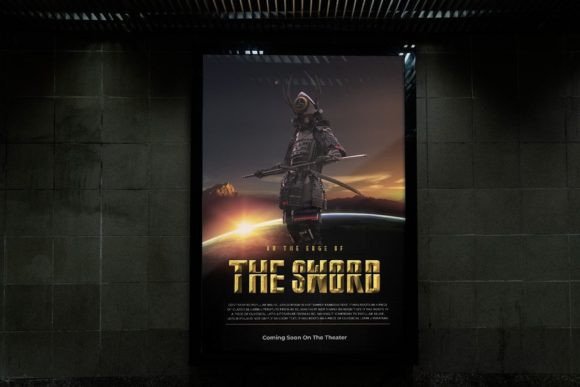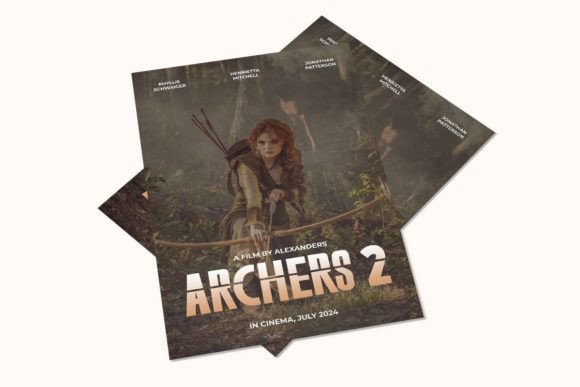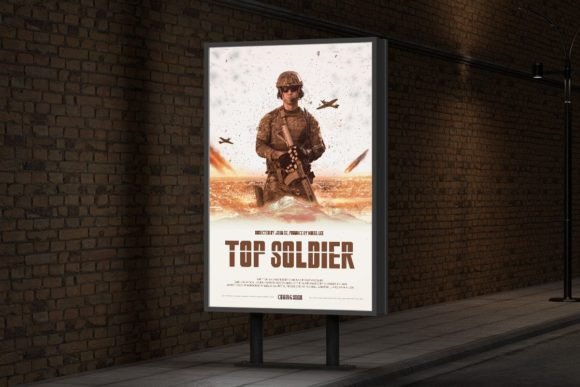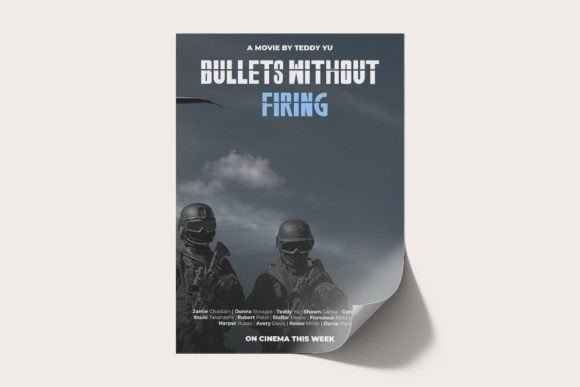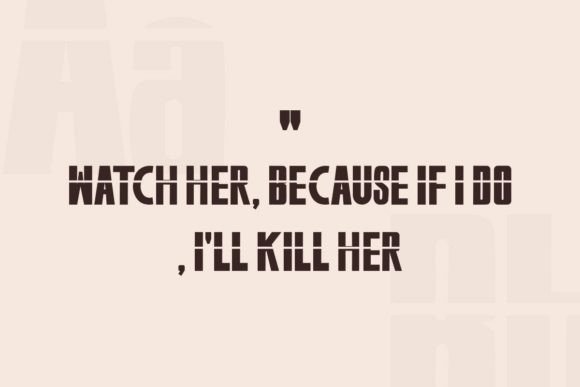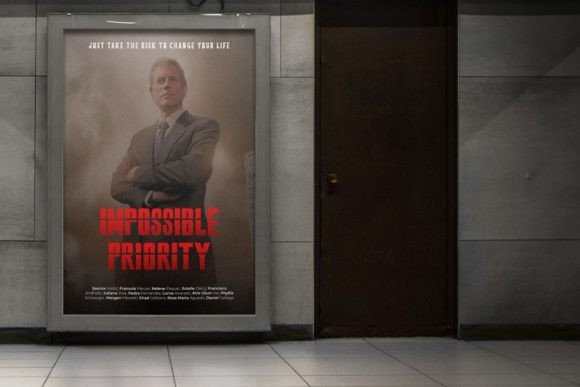
The Birth of a Bold Statement: Impossible Font
Remember that moment when you stumbled upon the perfect font for your design project, and everything just clicked? It’s like the universe aligned the pixels in your favor. For designers, finding the right typeface can be a game-changer. And that’s exactly what Impossible Font does – it makes a bold statement, turning your ordinary designs into extraordinary ones.
Impossible Font is a decorative sans serif typeface designed to make a lasting impression. Whether you’re creating movie titles, logos, or headlines, this flexible and friendly font is sure to turn heads. With its PUA encoding, you can easily access all the amazing glyphs and ligatures, giving you endless possibilities to experiment and create.
Key Features of “Impossible Font”
- Unique Character Set: The “Impossible Font” features a custom-designed set of characters, including letters, numbers, and symbols, that are optimized for readability and aesthetic appeal.
- High Resolution: The font is designed at a high resolution of 300 DPI, ensuring crisp and clear text display, even at large sizes.
- Font Size and Weight: The font is available in multiple sizes, ranging from 12 to 72 points, and various weights, including Light, Regular, Medium, Bold, and Black, allowing for flexibility in design and layout.
- Customizable: The font is designed to be highly customizable, with features such as ligatures, swashes, and alternate characters, allowing designers to create unique and creative typography.
- Legibility and Readability: The font is optimized for legibility and readability, with features such as clear letterforms, adequate x-height, and sufficient contrast between light and dark areas, making it suitable for body text and large blocks of text.
Impossible Font Review
Overall, I’d say the Impossible Font is a unique and intriguing addition to any designer’s toolkit ✨. The font’s irregular shape and varying line widths add a touch of personality to text, making it perfect for use in creative projects or to add a bit of whimsy to a design.
One of the things I love about this font is its ability to add a sense of movement and energy to text ✨. The variable line widths and irregular shapes create a sense of dynamism that can be really engaging. Additionally, the font is highly customizable, allowing designers to adjust the line width, spacing, and other parameters to suit their needs.
However, there are a few limitations to be aware of ⚠️. Firstly, the font can be quite difficult to read in certain situations, particularly at smaller font sizes or in low-contrast environments. Additionally, the font’s irregular shape can make it challenging to pair with other fonts, as it may not be easily legible in combination with more traditional typefaces.
Here are some pros and cons to consider:
- ✨ Unique and engaging design
- ✨ Highly customizable
- ✨ Adds a sense of movement and energy to text
- ⚠️ Can be difficult to read in certain situations
- ⚠️ May be challenging to pair with other fonts
Overall, I’d recommend the Impossible Font to designers looking to add a bit of personality and whimsy to their work. While it may have some limitations, its unique design and high level of customization make it a valuable addition to any designer’s toolkit.
Impossible Font: A Practical Application Guide
The Impossible Font is ideal for:
- Designing creative and eye-catching graphics.
- Adding a unique touch to presentations and documents.
- Creating visually appealing social media posts and ads.
Remember to use the font in moderation and balance it with other design elements to achieve the best results.